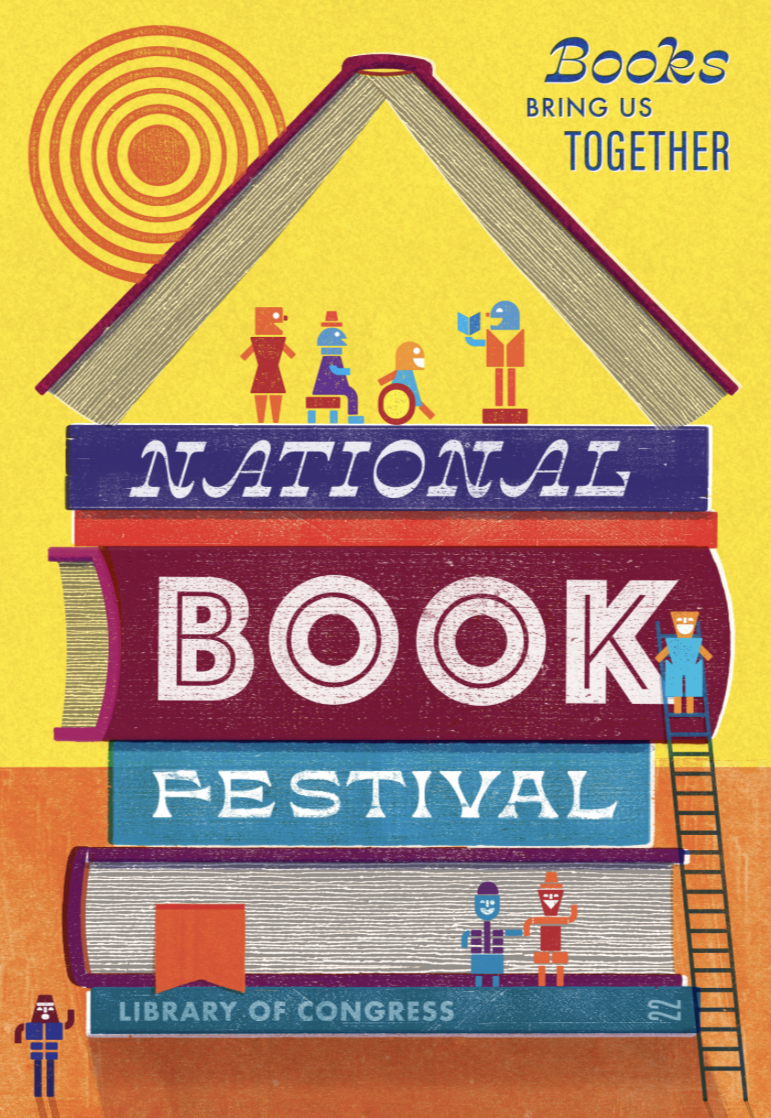
Enduring Trends to Look for in 2023
There are trends – and then there are mega, or enduring, trends. The concept of megatrends was coined by the American trendspotter John Naisbitt, who has published several books on the subject. The concept covers the very broad forces of change in society. They are long-term, and omnipresent. They occur in life – and typography.
We’ve looked at the Type Trends articles over the last couple of years and identified some enduring type trends, pointed out to us by some of the experts we’ve interviewed.
Katherine Hughes, design director at Stoltze Design, told us in 2020, “I can’t help noticing the explosion of experimental typefaces that are often rooted in a vector-based aesthetic.” Their sharp, witchy terminals; strange stresses; surreal Bezier curves; and nods to historic faces taken to an absurd extreme. I often find myself saying ‘Woah. That is so weird. I LOVE IT!”
Look to typefaces like Mixta from Latinotype, the Boring Sans series of designs from Zetafonts and Mirador from Rene Bieder as examples of the kind of typefaces Katherine is talking about. Although their roots are in classic serif and sans serif designs, shapes, counters, weight changes and serifs have been drawn with a fresh digital demeanor. These are typefaces that make a statement.
A year later, Katy Fischer, Curious Creative Leader at TOKY in St. Louis, Missouri, told us about the “Chobani® Effect” (a term Katy coined).
“A little over three years ago, the folks at Chobani yogurt released a complete redesign of its branding,” explained Katy, “including new bespoke typefaces. The typefaces could be described as the love child of Windsor™ and ITC Souvenir®.”While Windsor and Souvenir date back to the early 20th century, there are plenty of new takes on this genuinely friendly vibe. Boston Angel, Gazpacho, and Quincy CF are just a few of, the many Chobani Effect typefaces available from MyFonts.
Ryan Arruda, former font wrangler at MyFonts and now designer for for Tree House Brewing Company, in Central Massachusetts, thinks that we’ll continue to see new evolutions of styles – especially display fonts. He told us, ”They may push the envelope of typographic convention, and even legibility. The type coming down the pike seems like it will have no qualms singing out loud and drawing attention to themselves.”
We also asked Joe Newton, of AND, a New York design studio, if he had any thoughts on enduring type trends. He told us, “For me, ‘type trends’ fall into the dichotomy of fashion vs. style.”
“Fashion comes and goes, often dictated by commercial forces,” he continued. “Style is about tastefully and thoughtfully combining elements that suit YOU, or in the case of design, that suit the project. The latest fashion may feel fresh and exciting, but the critical question with typography is always: does the typeface have a suitable voice for your project?
Joe also send us a poster he and Gail Anderson, his business partner at AND, are working on for the National Book Festival. It combines several typefaces creating an engaging, light-hearted message. The fonts used include Temeraire Italliene Italic, Futura Bold and Phosphate Inline.
There are type trends, which can evolve into enduring trends – or typographic styles. According to Joe, “When choosing typefaces, today’s typographic designers have an embarrassment of riches. But in the end, a good designer will let the nature of the project determine what’s right.”